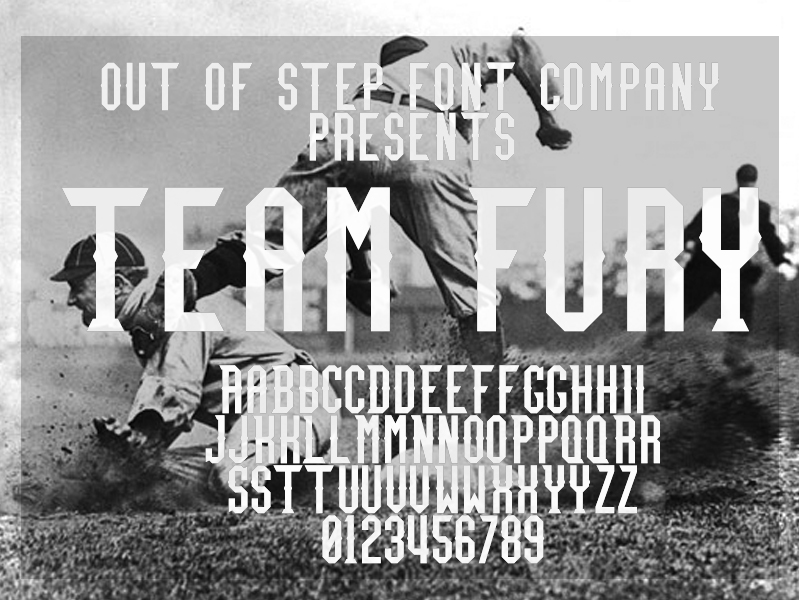
Font name: | Team Fury |
Author: | Out of Step Font Company |
Note by Out of Step Font Company | |
This font mixes the spirit of the Obey The Brave logo with the styling and serif locations of a classic varsity or college font, plus some studs at the median. Updated to replace the work in progress font previously uploaded! |